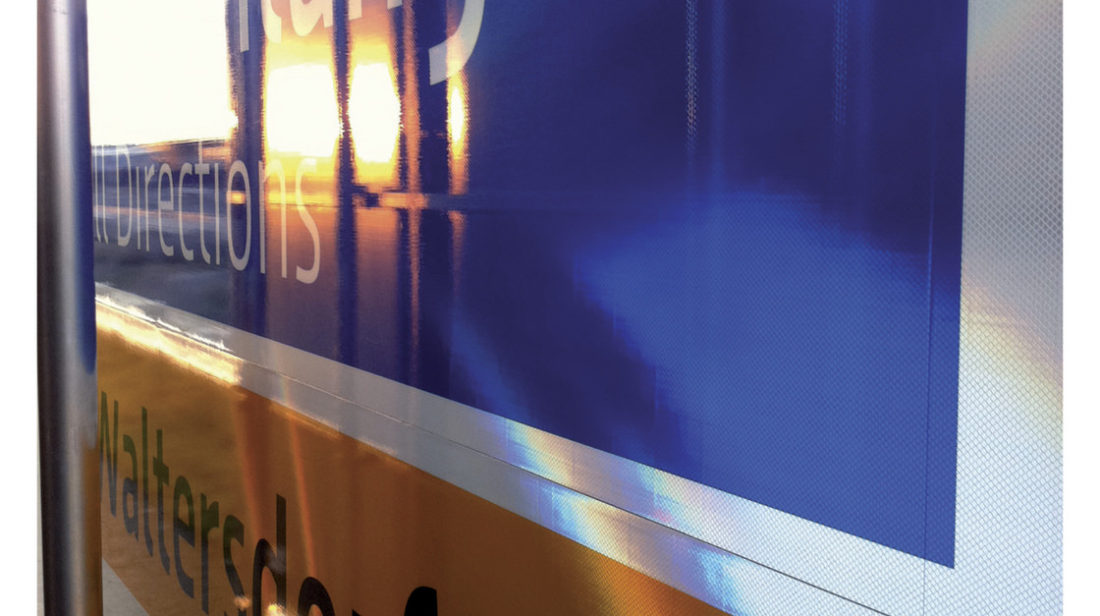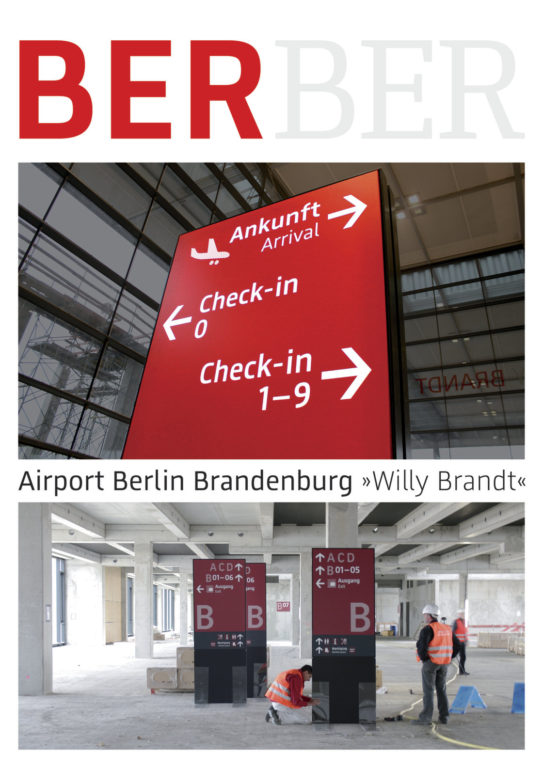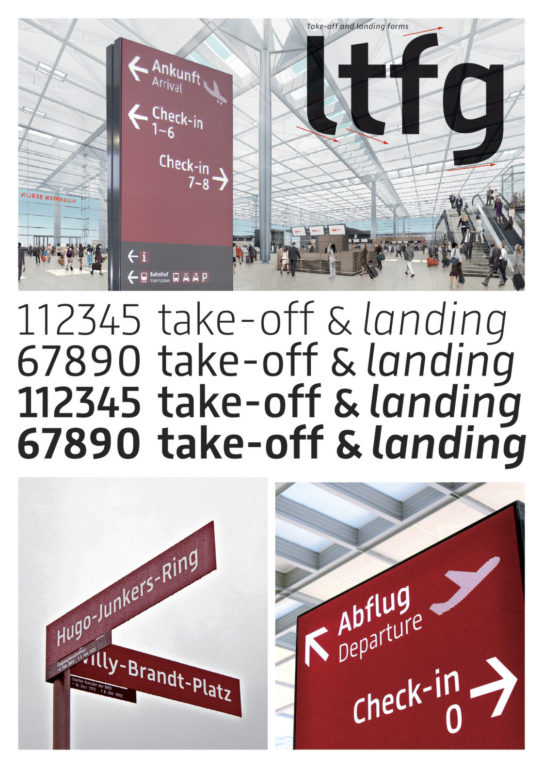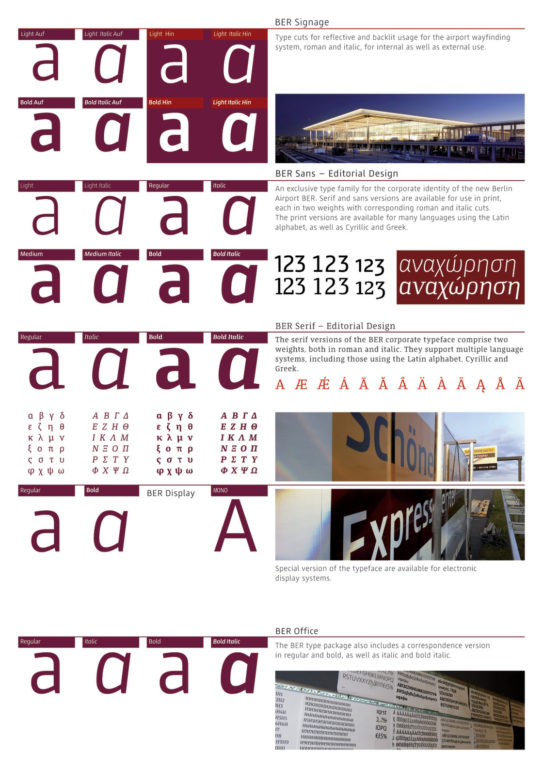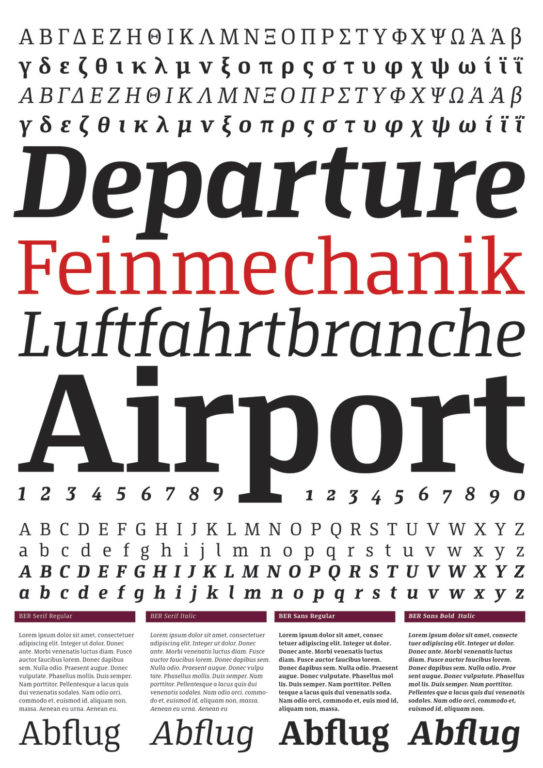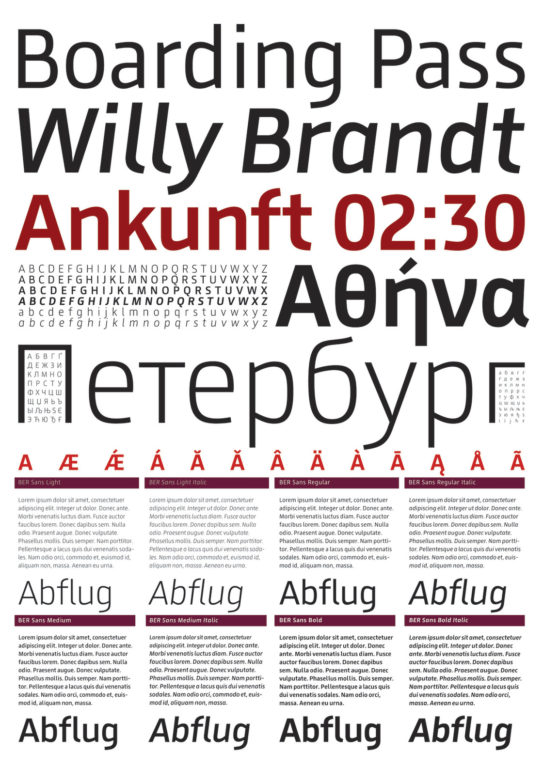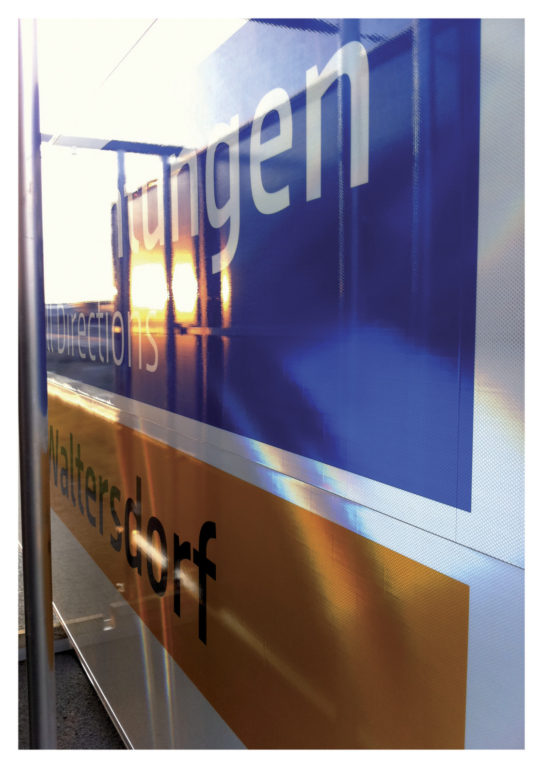
An exclusive type family for the corporate identity of the new Berlin Airport BER. Serif and sans versions are available for use in print, each in two weights with corresponding roman and italic cuts. The print versions are available for many languages using the Latin alphabet, as well as Cyrillic and Greek.
- Creative Directors Alexander Branczyk
- Designers Georg Seifert